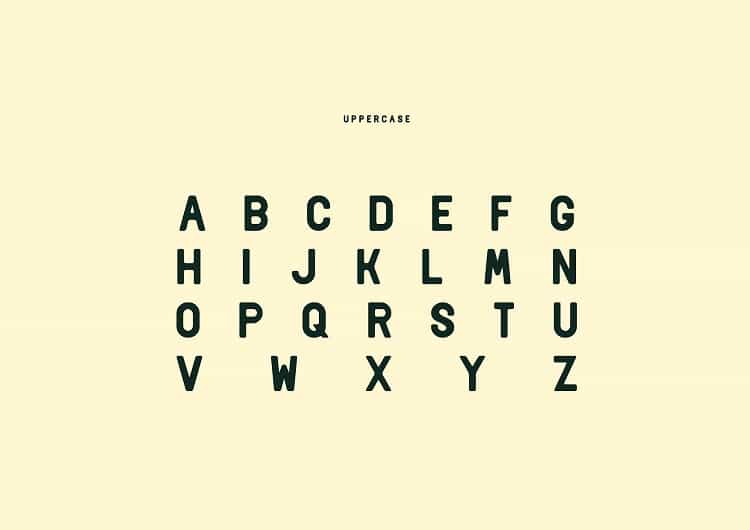
Introducing Delio Sans Serif Font, Delio Typeface inspired by an industrial atmosphere, workers or technicians who work with large machines. This typeface has rounded corners, including a very high x-height to be able to be applied for signs from the production room inside the factory into an outdoor sign.